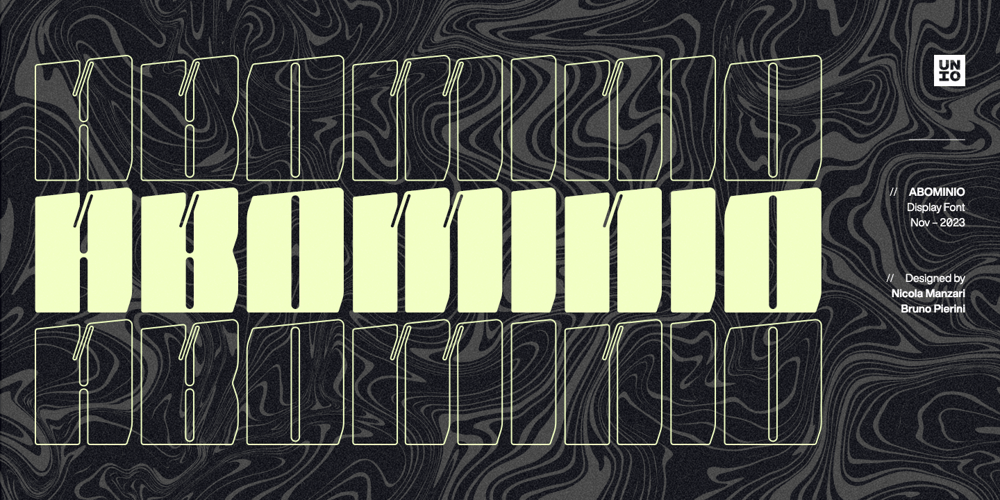
Abominio Font Family was designed by Nicola Manzari and published by Unio Creative Solutions. Abominio contains 3 styles and family package options. Abominio is a captivating display typeface featuring an innovative design of recurring chiseled forms. This font aims to capture the spirit of maximalism culture, offering a valuable asset for consumer-oriented designs, allowing them to stand out in a in a sea of competitors. With its bold and experimental appearance, Abominio remains true to the letters of the Latin alphabet. This unique characteristic is well-suited to capture and hold the attention of easily distracted viewers, extending their focus for a few more vital seconds.Designers now have the opportunity to explore their creativity, creating both refined and daring combinations for eye-catching headlines, titles, or graphic design projects that aim to convey strength and artistic innovation.Specifications:- Included: Abominio Regular, Abominio Oblique, Abominio Variable- Multi language support (Central, Eastern, Western European Languages)- OpenType FeaturesThanks for viewing, Unio.